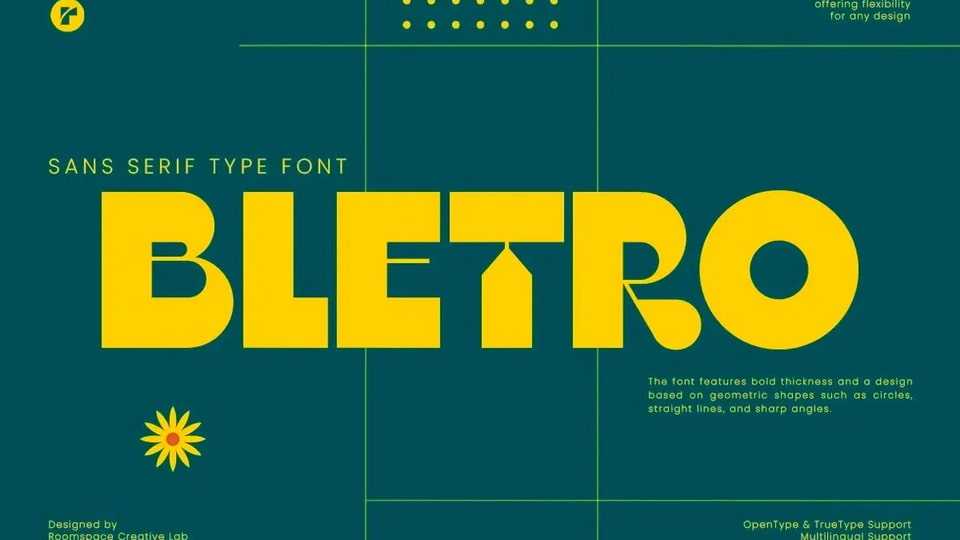
Download Bletro font, a stunning sans serif display typeface that perfectly balances modern and retro aesthetics, designed with geometric shapes, bold thickness, and sharp angles.